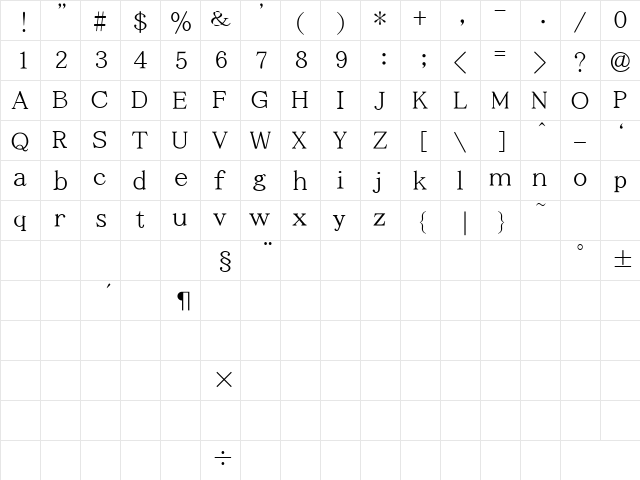
Togoshi Mincho Regular
Design Context for Togoshi Mincho Typeface
Togoshi Mincho offers clean, dependable letterforms without strong stylistic allegiance, making it a practical choice for designers who need flexibility.